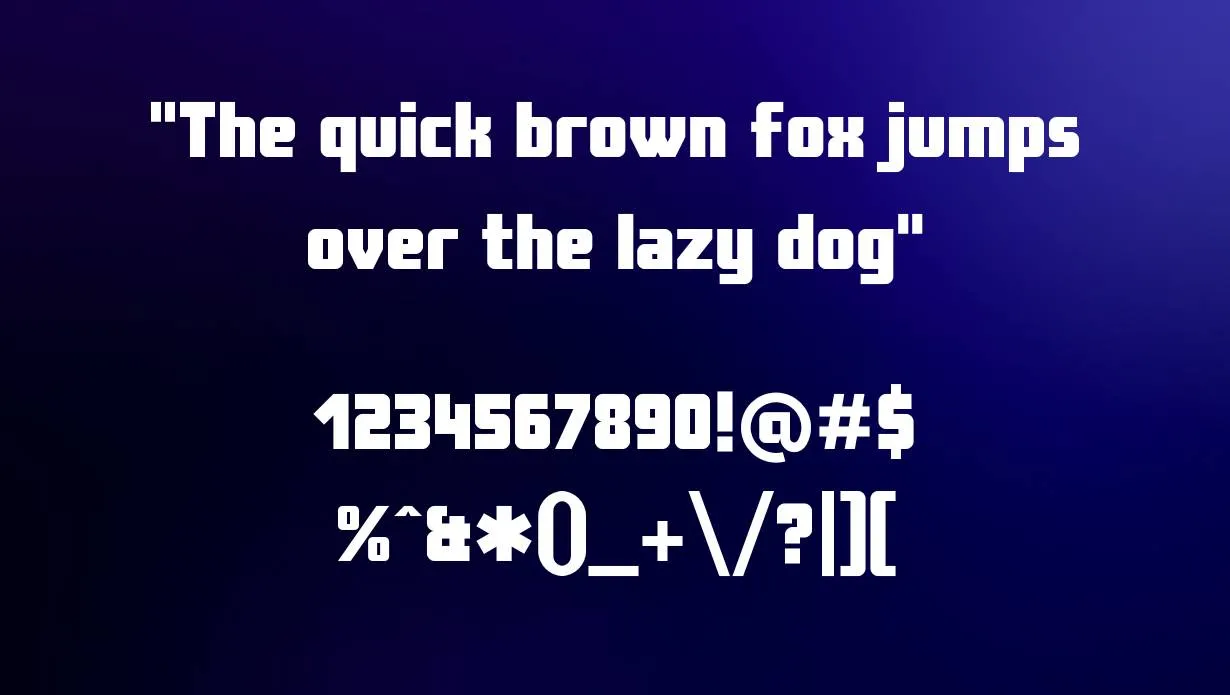
Costa Rica font is like a tropical carnival for your words—vibrant, lively, and full of zest. When you use it, your text transforms into a lively parade of colors and excitement. It’s the go-to choice for creating invitations or banners that need that festive touch.Â
Costa Rica’s letters dance like carnival performers, infusing your message with a burst of joy and vivacity.
| Name | Costa Rica Font |
| Designer | Donis Miftahudin |